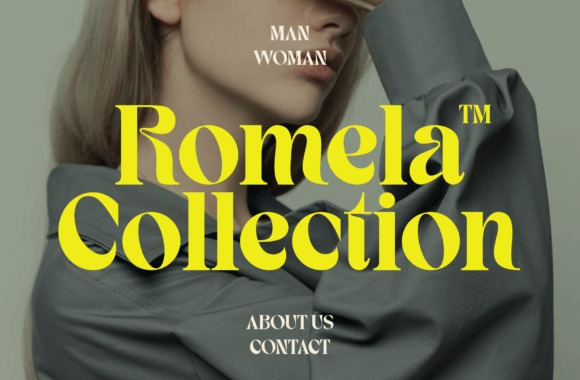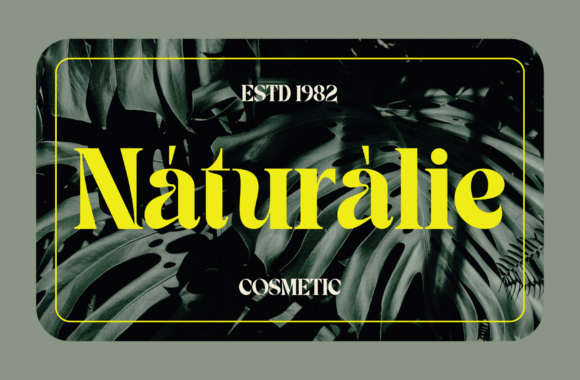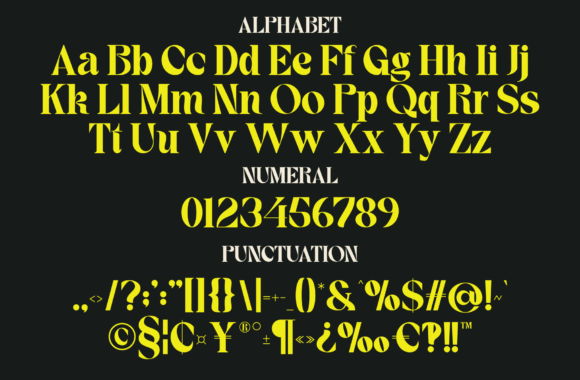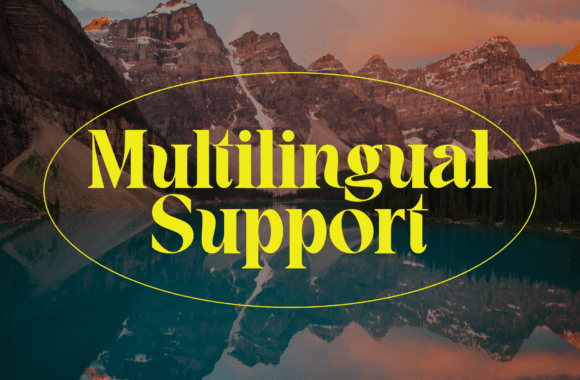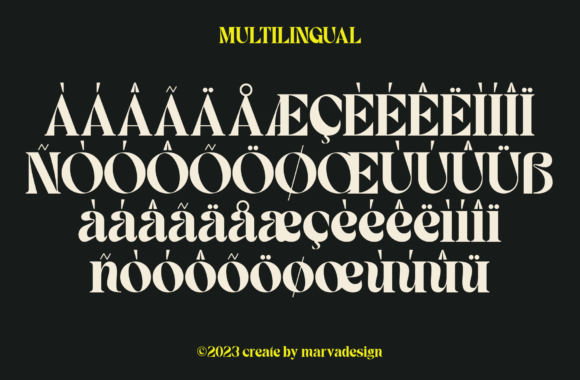
Discover the Timeless Elegance of Boalie Font
Are you a designer or crafter looking for a font that exudes sophistication and refinement? Look no further than Boalie Font, a classic font style that has been a staple of formal documents, invitations, and literature for centuries. With its elegant and traditional appearance, Boalie is the perfect choice for any project that requires a touch of dignity and poise.
The Characteristics of Boalie Font
Boalie Font is characterized by its decorative strokes and serifs, which give it a unique and sophisticated look. The letters are carefully crafted with intricate details, making it a standout among other font styles. The serifs, or small lines, at the end of the letters add a level of refinement and elegance, making Boalie perfect for formal documents, such as certificates, diplomas, and wedding invitations.
Uses of Boalie Font
Boalie Font is incredibly versatile and can be used in a variety of contexts. Some of the most popular uses of Boalie include:
- Formal Documents: Boalie is often used in formal documents, such as certificates, diplomas, and official letters, where a level of sophistication and elegance is required.
- Invitations: Boalie is a popular choice for wedding invitations, baby showers, and other formal events, where a touch of refinement and poise is desired.
- Classic Literature: Boalie has been used in classic literature for centuries, and is often associated with traditional publishing.
- Signage: Boalie can also be used in signage, such as logos, billboards, and posters, where a level of sophistication and elegance is required.
Benefits of Using Boalie Font
There are many benefits to using Boalie Font in your designs. Some of the most significant advantages include:
- Timeless Appeal: Boalie has a timeless appeal that never goes out of style. Its classic design ensures that it will remain relevant for years to come.
- Elegance and Sophistication: Boalie exudes elegance and sophistication, making it perfect for formal documents and events.
- Versatility: Boalie can be used in a variety of contexts, from formal documents to signage.
- Easy to Read: Despite its ornate design, Boalie is easy to read, making it perfect for large blocks of text.
Tips for Using Boalie Font
To get the most out of Boalie Font, here are a few tips to keep in mind:
- Use it Sparingly: Boalie is a bold font, and using it sparingly can help to create a greater impact.
- Pair it with a Sans-Serif Font: Pairing Boalie with a sans-serif font can help to create a nice contrast and add visual interest.
- Experiment with Sizes: Experimenting with different sizes can help to create a hierarchy of information and add emphasis to key points.
Boalie Font is a timeless and elegant font style that is perfect for designers and crafters looking to add a touch of sophistication and refinement to their projects. With its decorative strokes and serifs, Boalie is a standout among other font styles, and its versatility makes it suitable for a wide range of contexts. Whether you’re creating formal documents, invitations, or signage, Boalie is a great choice. So why not give it a try and see the impact it can have on your designs?